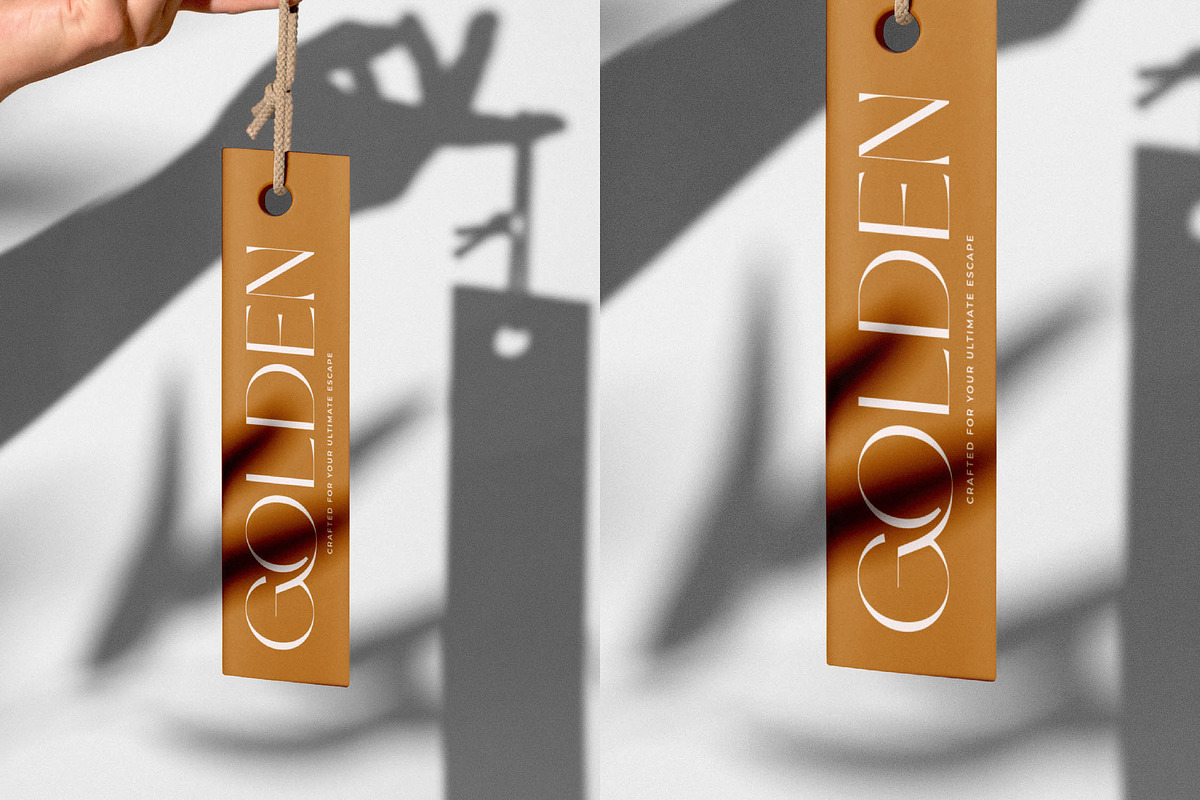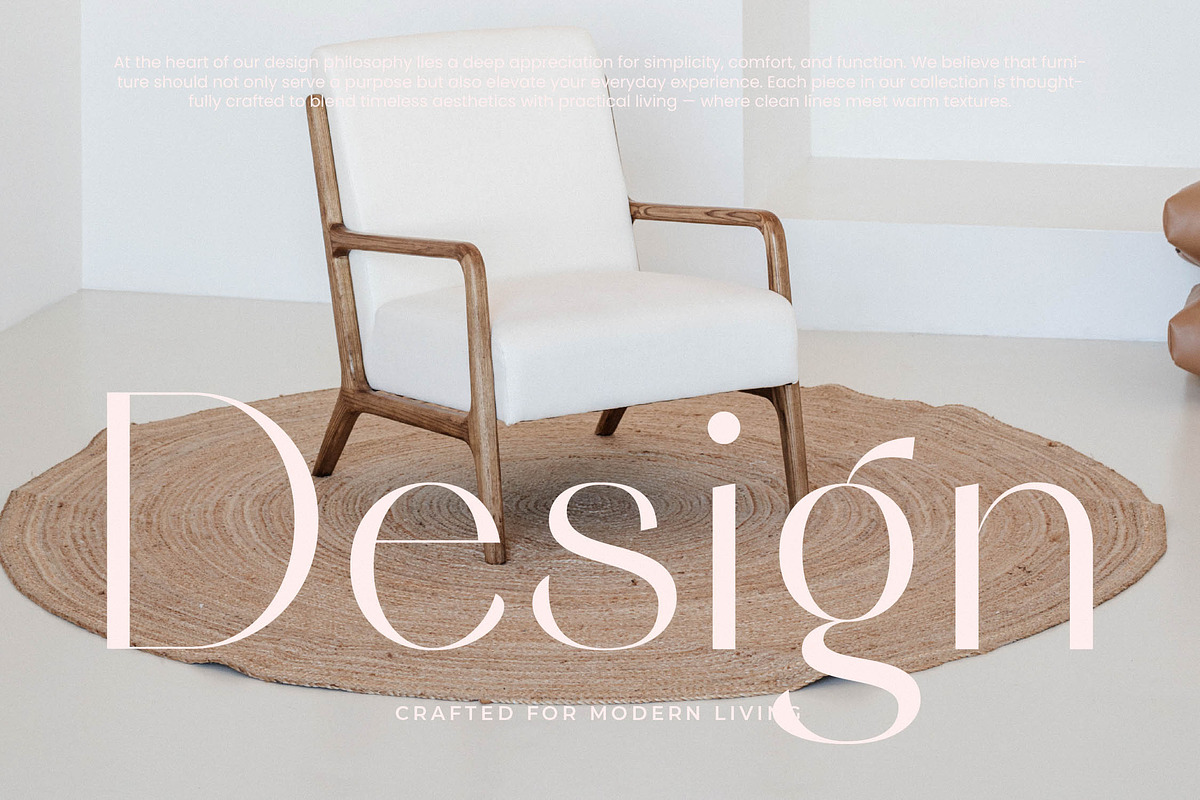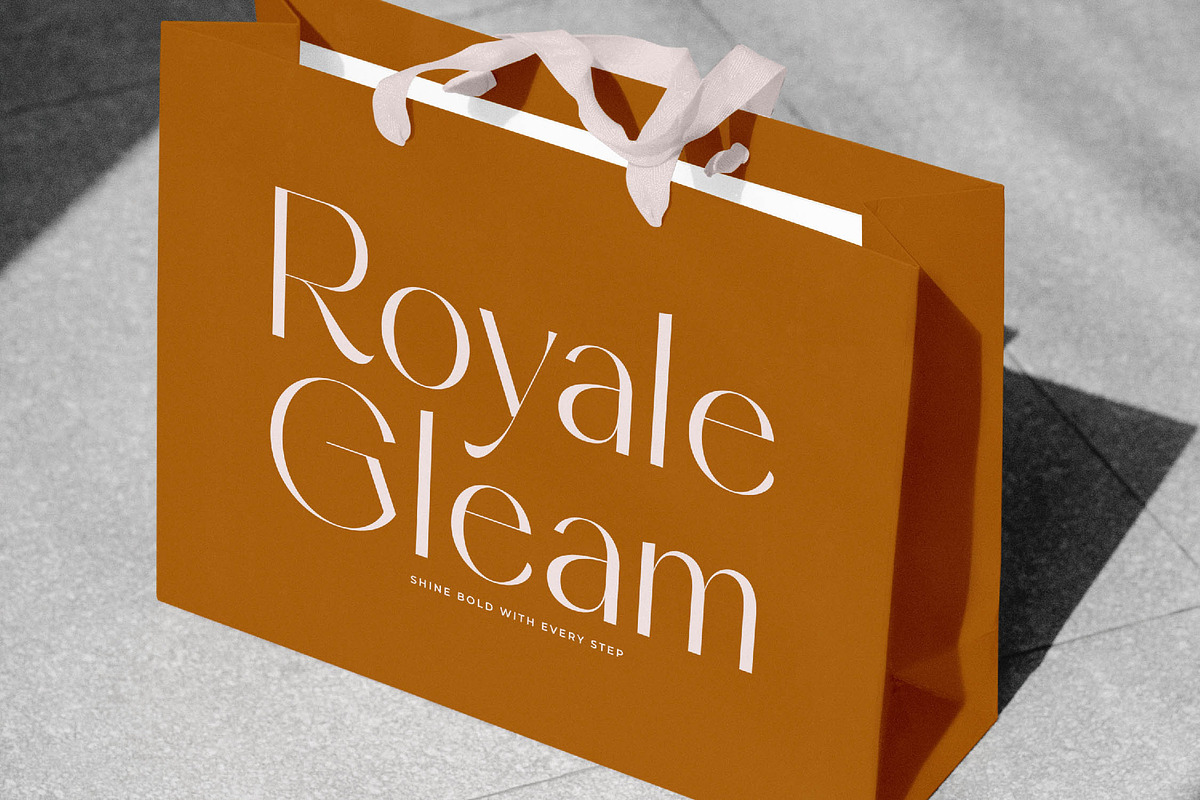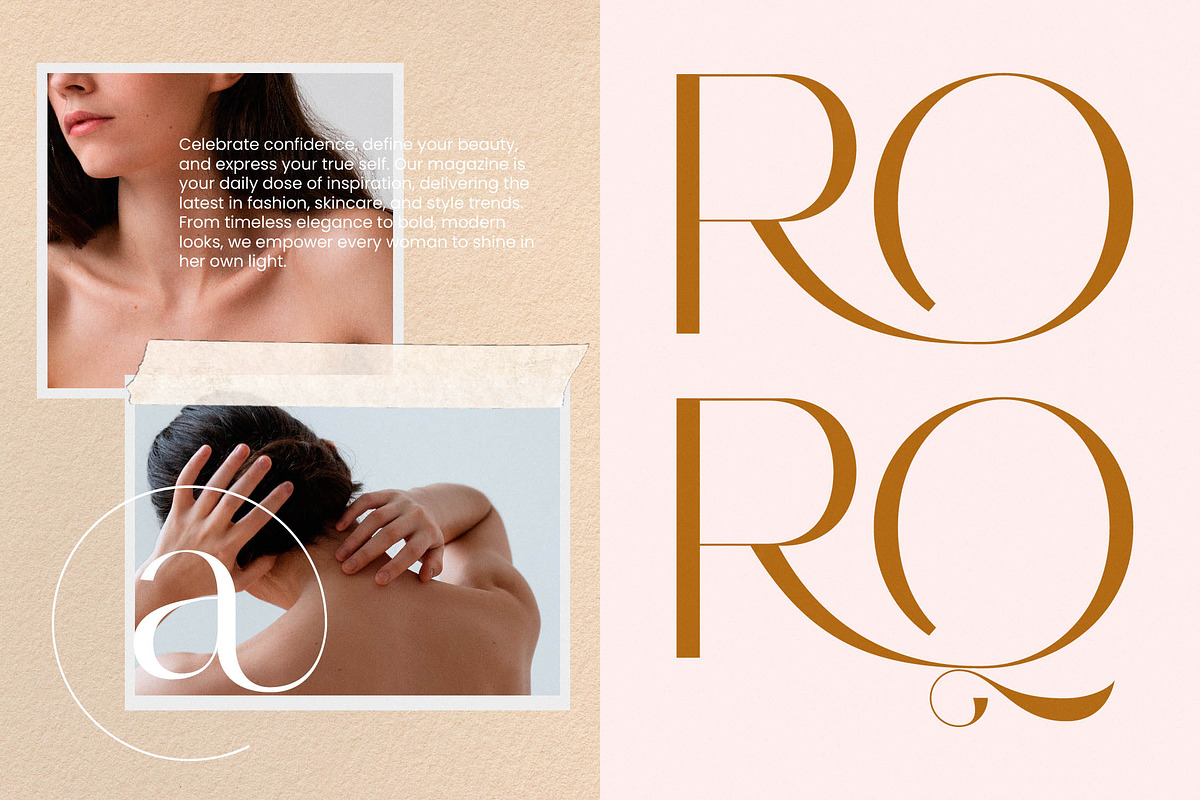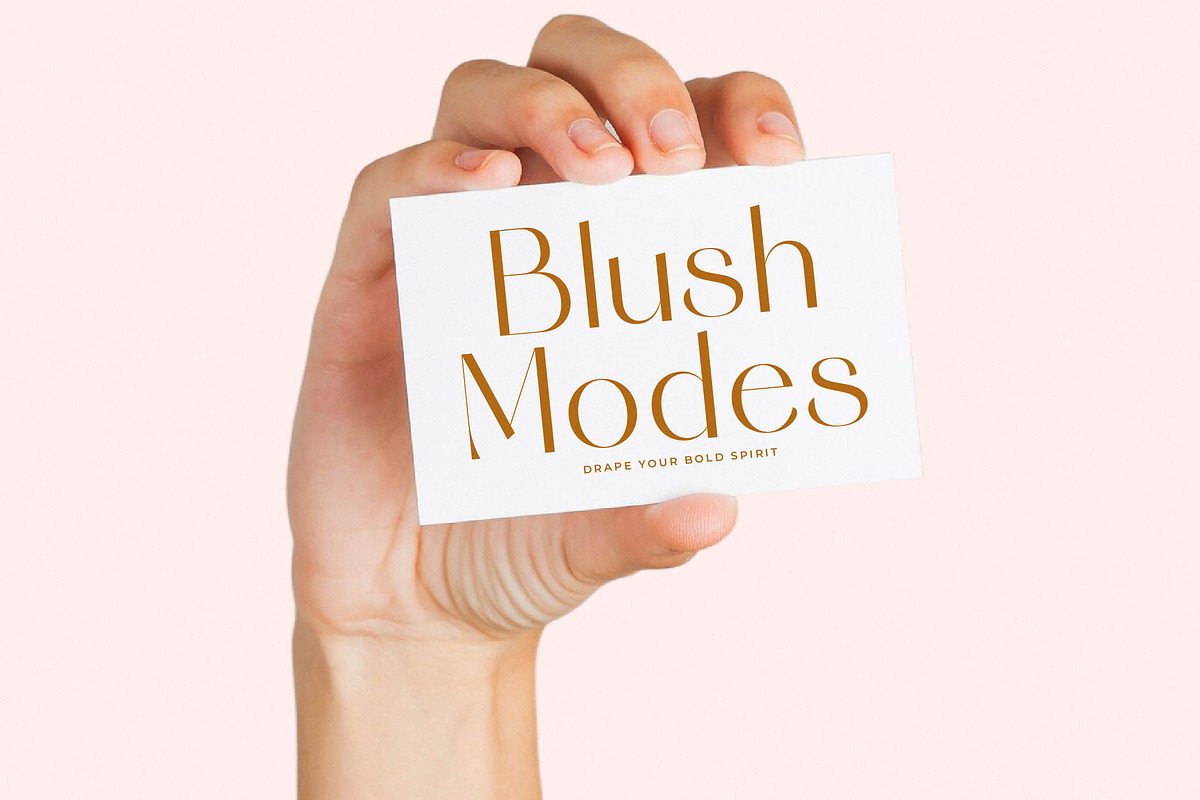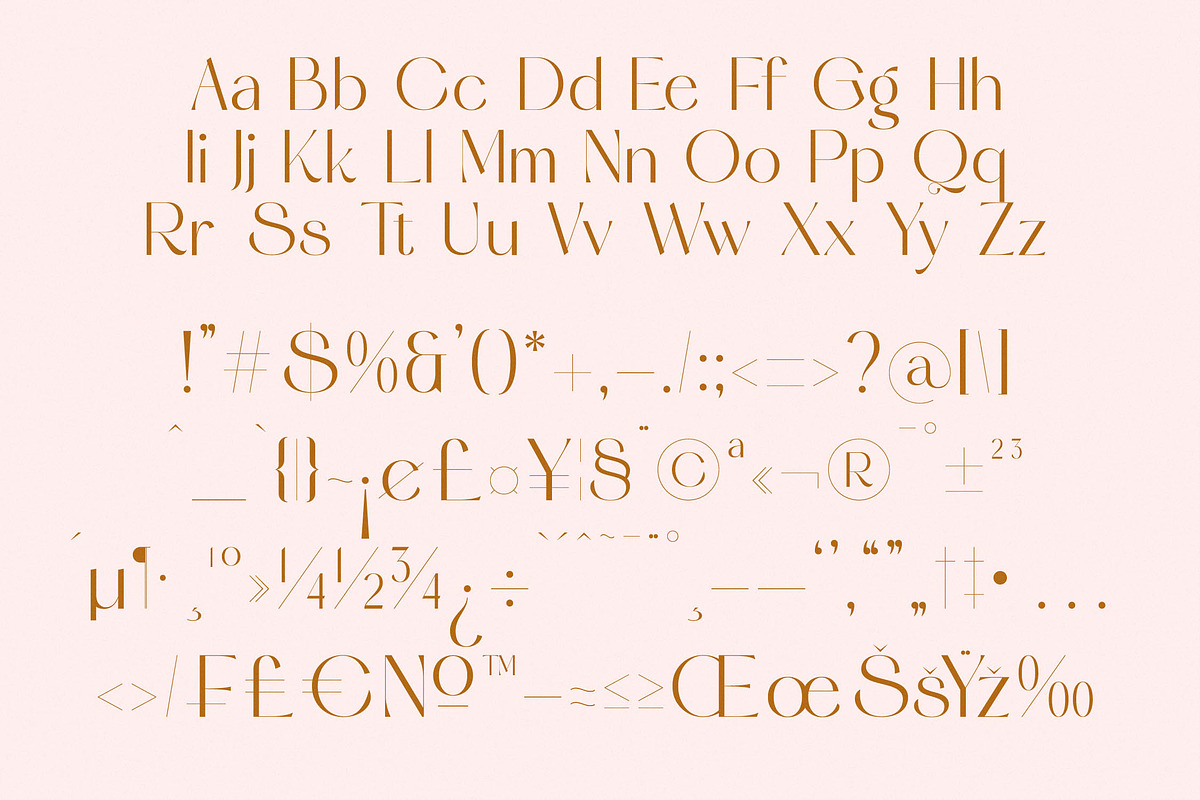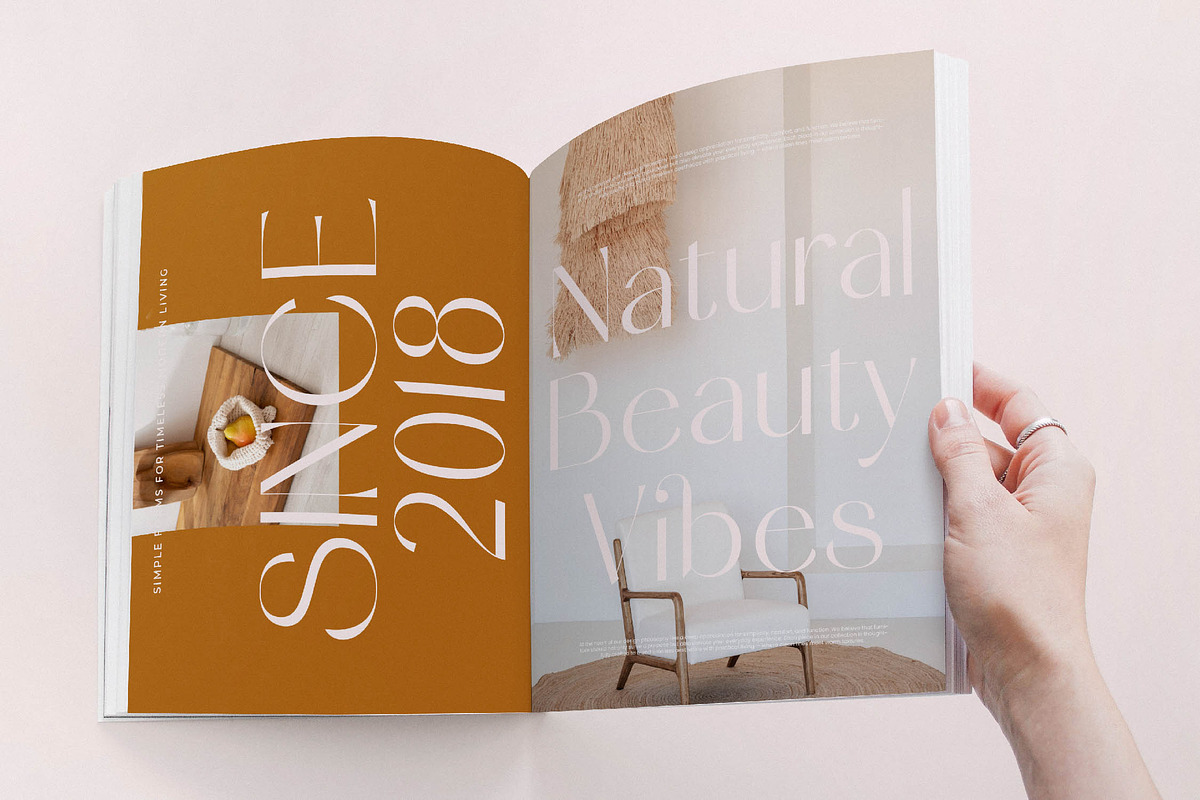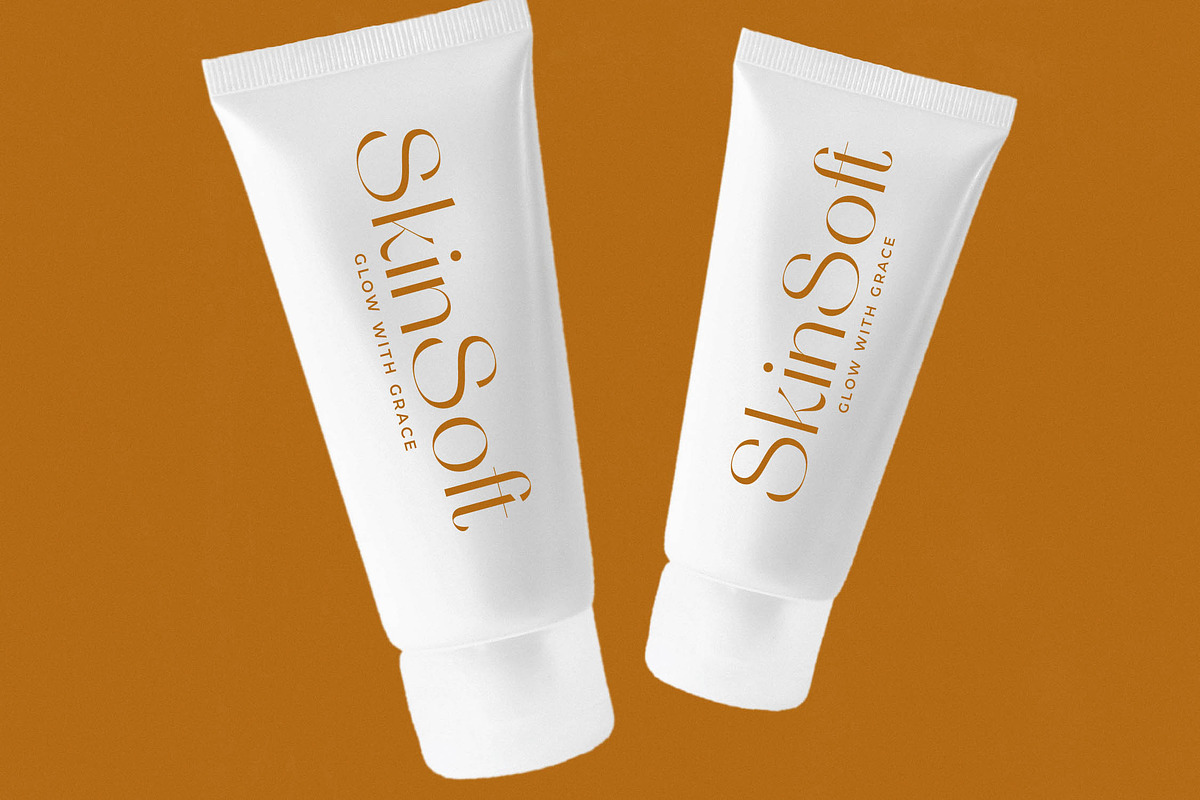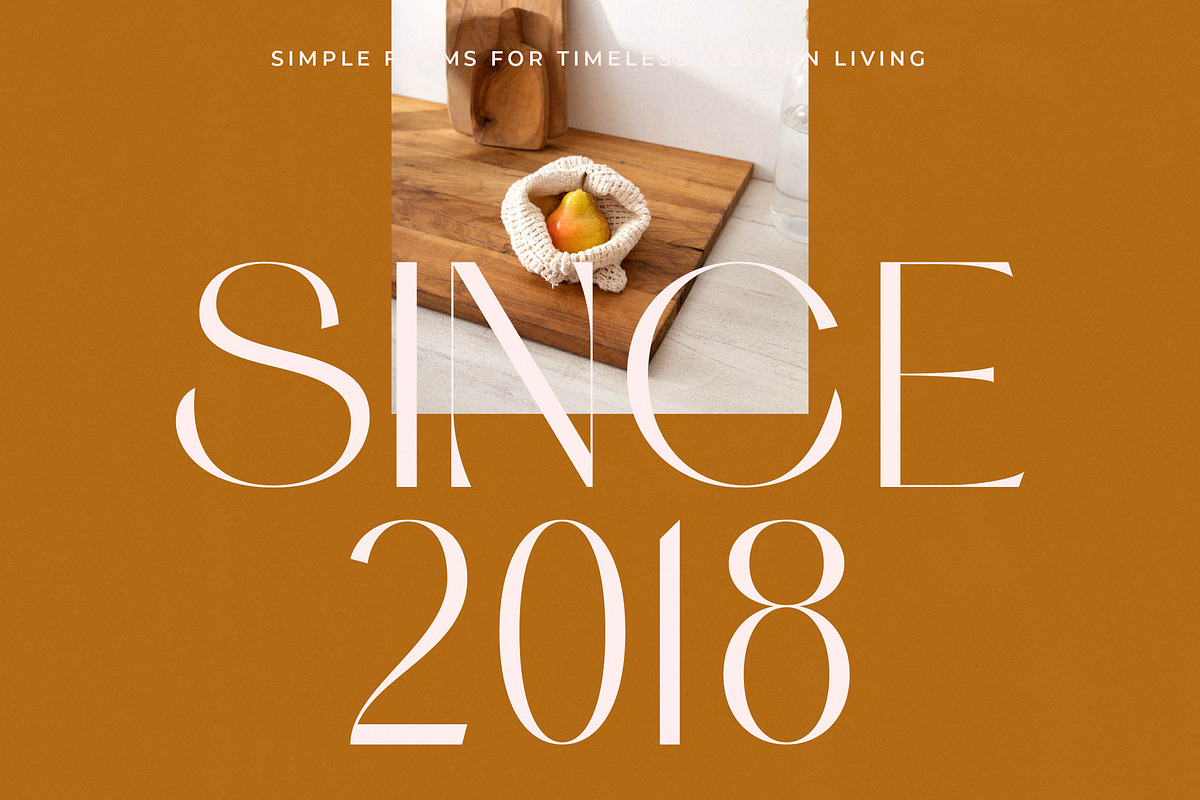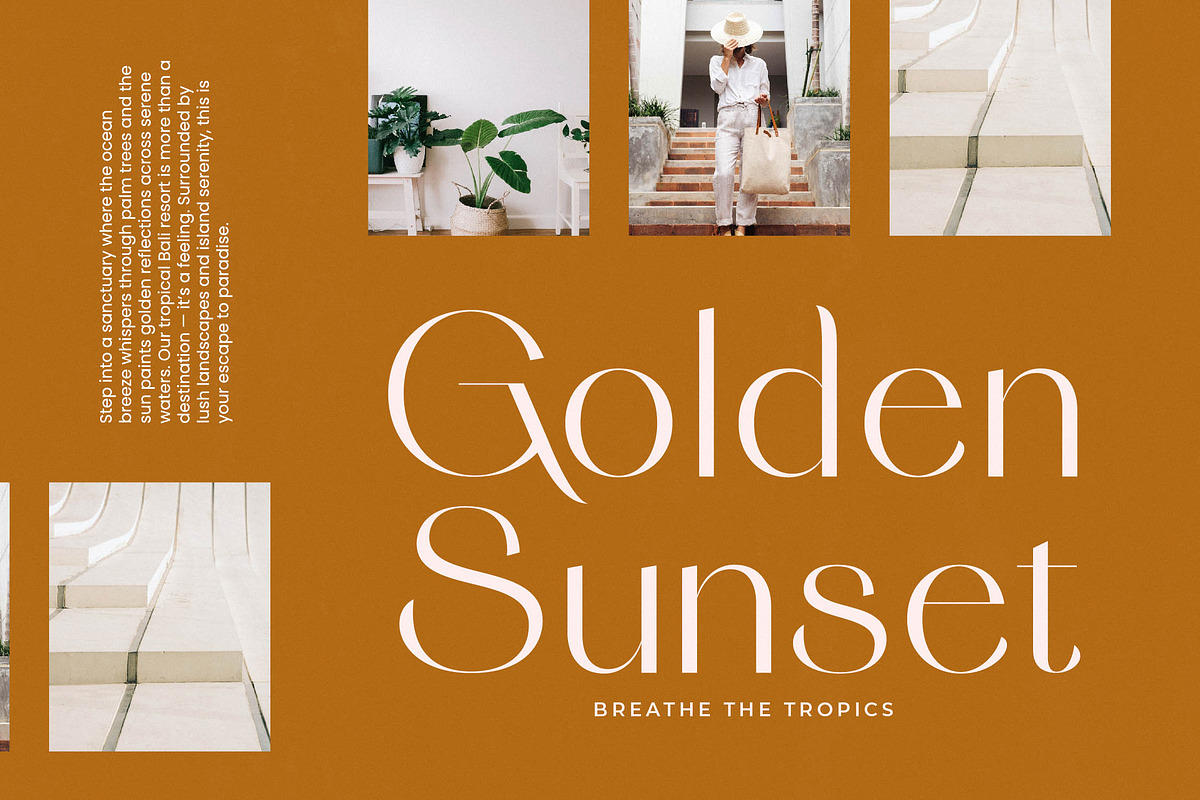
Stack Qisplay Elegant Display Font
Stack Qisplay is an exquisite display font that commands attention with its graceful curves and striking proportions. It is the definitive choice for designers looking to infuse their projects with an air of high-end sophistication and timeless beauty.
Drawing inspiration from the golden era of editorial design and contemporary fashion aesthetics, this typeface bridges the gap between classic elegance and modern minimalism. It captures a curated atmosphere where every letterform feels like a deliberate piece of art, perfectly suited for high-impact visual storytelling.
This modern serif display delivers an unparalleled luxury typography experience, blending sharp lines with fluid, organic shapes. The high-contrast serif elements create a rhythmic flow that ensures every word makes a massive branding impact, making it the perfect editorial font for those who refuse to settle for the ordinary.
As the modern serif trend continues to dominate the creative landscape, this font stands out by offering a unique twist on editorial display fonts. Its character-driven typography aligns perfectly with current visual directions that favor boldness, personality, and a touch of vintage flair adapted for the digital age.
From high-end logo design and comprehensive branding systems to immersive editorial layouts, this typeface is incredibly versatile. It is equally at home on luxury packaging, romantic wedding stationery, or cutting-edge fashion lookbooks, ensuring your message is delivered with undeniable style.
The font package is packed with professional features including unique ligatures and creative alternates that allow for custom typographic expressions. With elegant swashes and full multilingual support for international characters, it provides the technical flexibility needed for global design projects.
- Ligature 038 Alternate 028